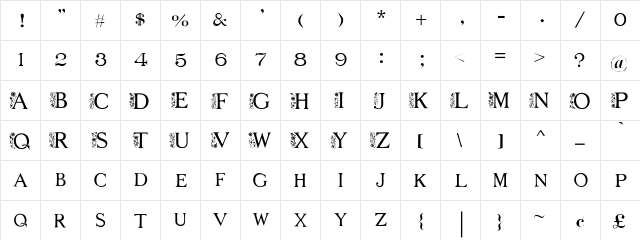
FLOWER GARDEN Regular
| Designer | George Herbert Hirst and Wilfred Rhodes |
Design Context for FLOWER GARDEN Typeface
FLOWER GARDEN is a composed and adaptable typeface that performs quietly and consistently across a wide range of design contexts.